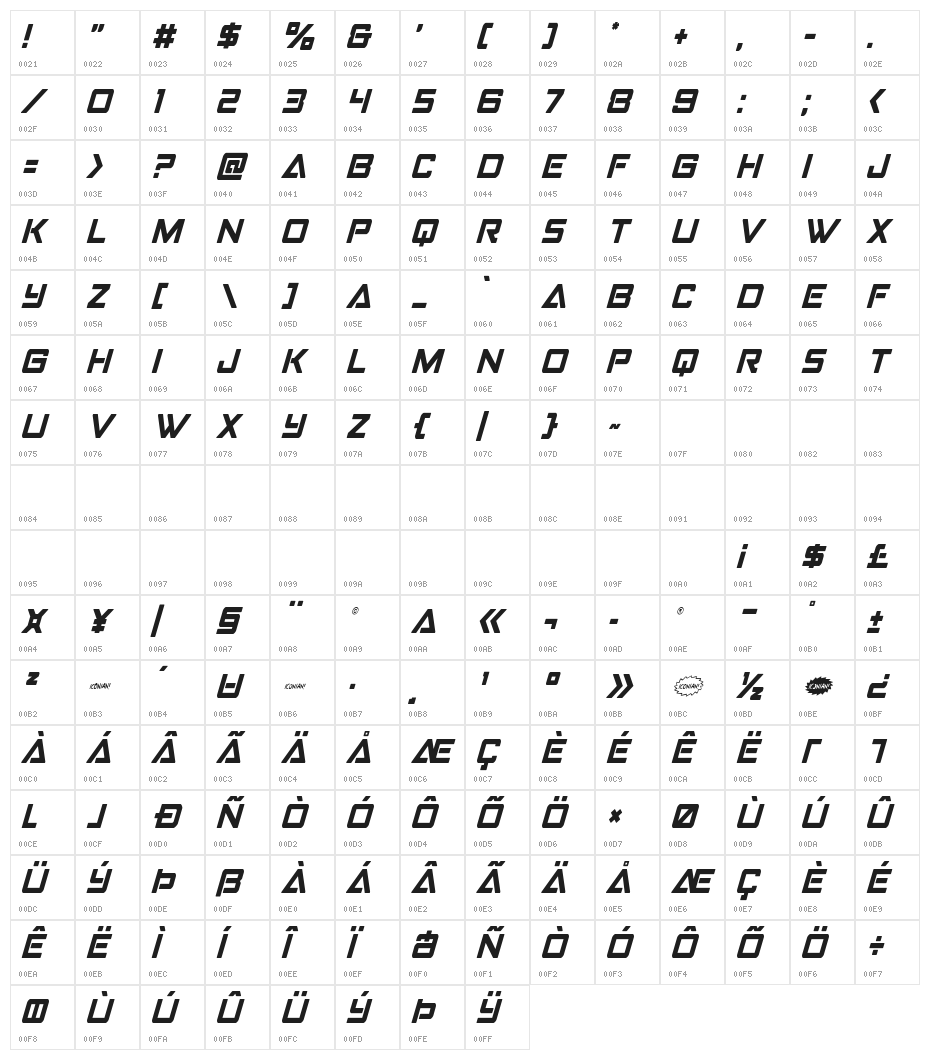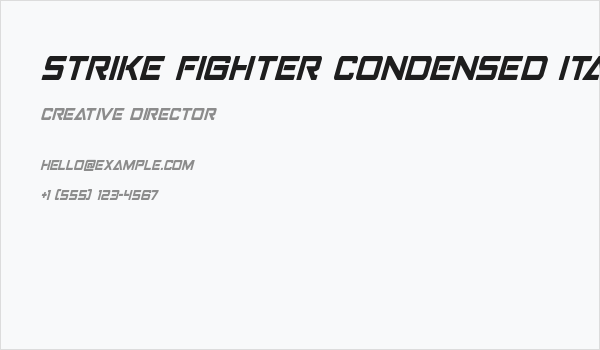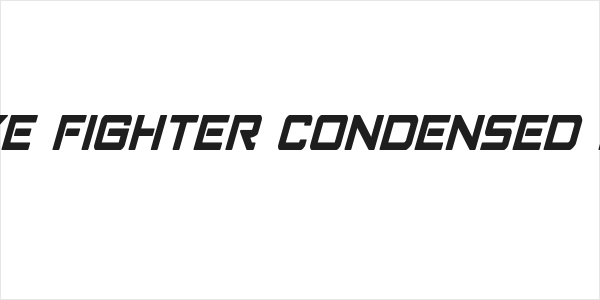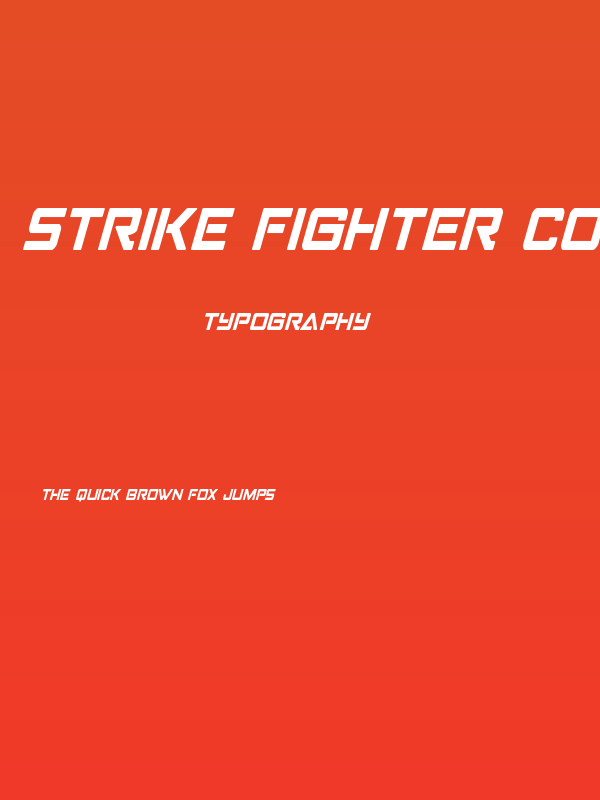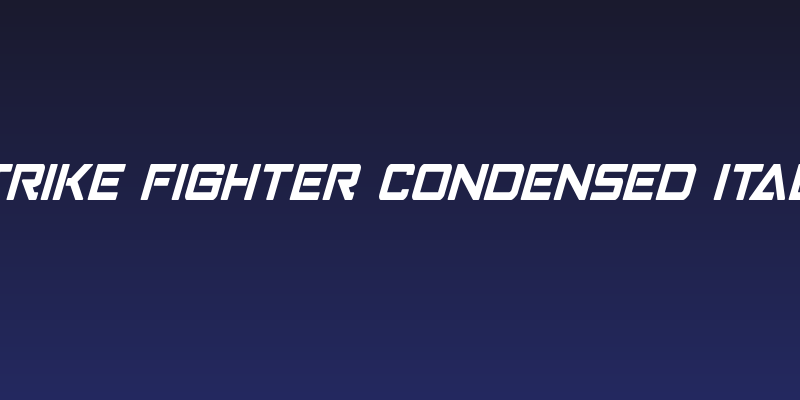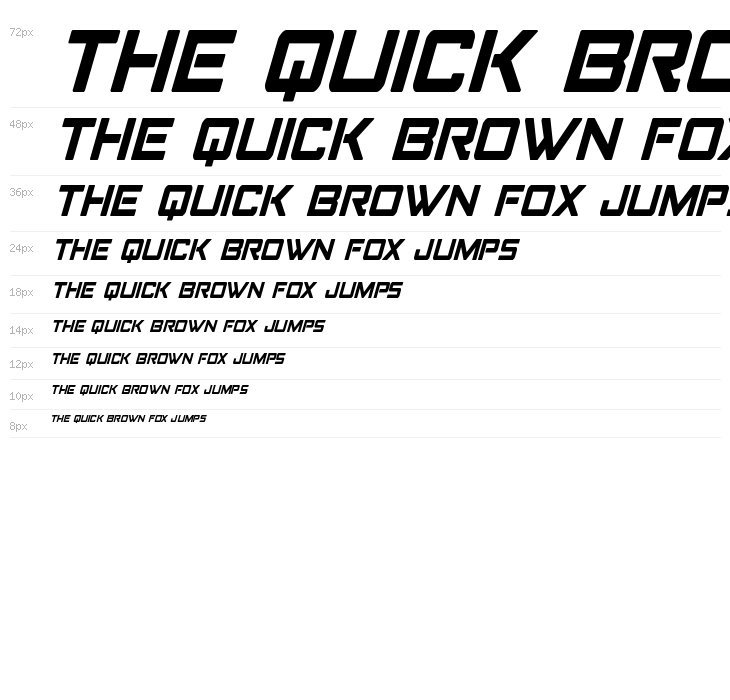
Strike Fighter Condensed Italic Font
Strike Fighter Condensed Italic Description
This font features a bold, italicized style with a condensed width, giving it a dynamic and modern appearance. The characters are sharply angled, creating a sense of motion and speed, which is ideal for projects that require a futuristic or high-energy aesthetic. The uppercase letters are particularly striking, with a uniform height and consistent slant that enhances readability while maintaining a unique visual impact. The numerals and special characters are designed to match the overall style, ensuring a cohesive look across all text elements. The font's condensed nature allows for efficient use of space, making it suitable for headlines and other prominent text displays.